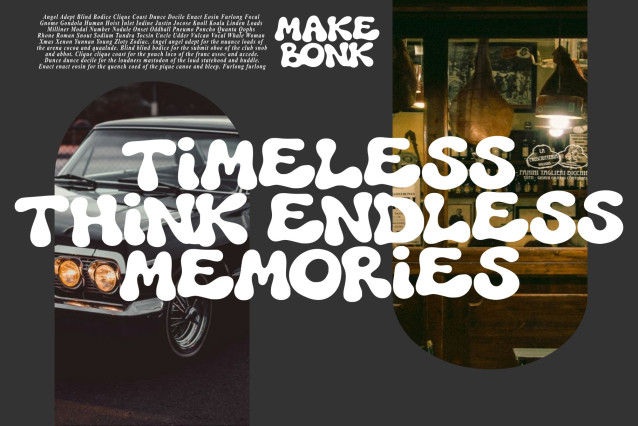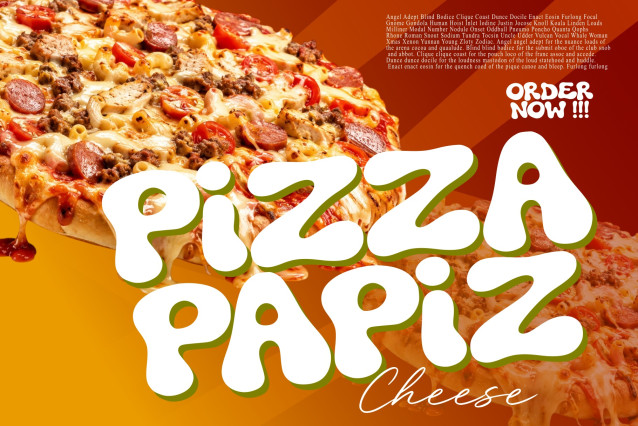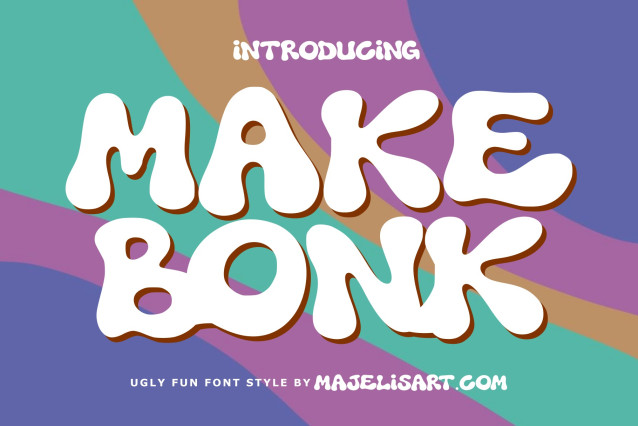
Makebonk – Ugly Font
Makebonk — Ugly Fun Display Font
Introducing Makebonk, a quirky and playful display typeface designed to bring a bold, fun, and unconventional personality to your designs. Featuring soft, chunky, irregular letterforms and exaggerated rounded shapes, Makebonk embraces an intentionally “ugly” aesthetic that feels energetic, humorous, and eye-catching. Its unusual proportions give the font a distinctive character that stands out from conventional display typefaces.
Makebonk is perfect for creative projects that need a fun, youthful, weird, and memorable visual style.